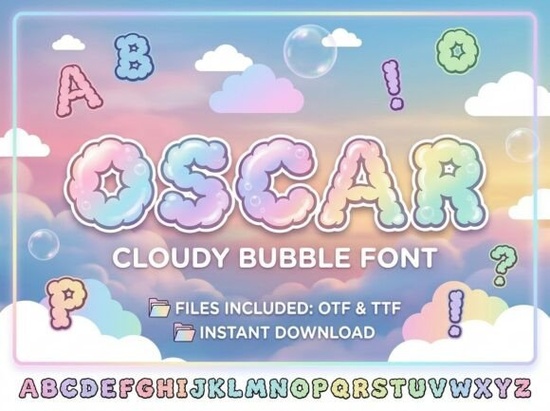
If you're looking for a font that feels like a soft summer day light, cheerful, and full of gentle charm the Oscar Font might be exactly what your next creative project needs. Designed with dreamy pastel gradients, fluffy cloud-like letterforms, and tiny bubble accents, Oscar brings a playful, “cloudy bubble” aesthetic to everything from nursery wall art to kids’ apparel and kawaii-inspired stationery.
This isn’t just another display font it’s a mood. Each character looks like it’s floating on air, with a whimsical outline and multi-colored softness that makes even simple phrases feel magical. Whether you’re designing printable quote cards for Instagram, custom onesies for a small shop, or birthday invitations for a child’s party, Oscar adds instant warmth without overwhelming your layout.
What kinds of projects work best with Oscar?
Oscar shines in contexts where softness, innocence, and joy are key. Think:
- Nursery and kids’ room decor – Wall decals, growth charts, or personalized name signs
- Children’s clothing and accessories – Onesies, tote bags, or hair clips with sweet messages
- Social media graphics – Uplifting quotes over pastel backgrounds
- Stationery and greeting cards – Birthday cards, baby announcements, or thank-you notes
- Kawaii or cottagecore branding – Logos or packaging for small businesses with a gentle, handmade vibe
Because of its detailed design, Oscar works best at larger sizes. It’s not meant for body text but that’s part of its charm. Use it as a headline, a focal word, or a decorative accent, and let its bubbly personality do the talking.
How does Oscar compare to other playful display fonts?
Oscar stands apart because of its cloud-inspired texture and gradient coloring. Unlike more geometric or hand-lettered options like the rounded sweetness of Dango or the sporty energy of Sports Baseball fonts Oscar leans into fantasy and softness. Even compared to delicate inline styles like Lumina Inline, Oscar feels more tactile, almost like you could reach out and touch a puff of cotton candy.
Tips for using Oscar effectively
Because Oscar is so visually rich, less is often more. Here’s how to get the best results:
- Pair it with clean, neutral fonts. Let Oscar be the star use a simple sans-serif like Helvetica or Montserrat for supporting text.
- Use plenty of white (or pastel) space. The font already has visual weight; crowding it will muddy its dreamy effect.
- Avoid dark or busy backgrounds. Oscar’s pastel gradients need light, airy surroundings to shine.
- Check your print settings. If you’re using it for physical products, ensure your printer can handle subtle color transitions without banding.
Also, remember that Oscar includes both uppercase and lowercase letters, plus numerals and punctuation so you’re not limited to single-word designs. You can craft full phrases like “sweet dreams” or “hello sunshine” while keeping that cohesive, cloud-kissed look.
Who should consider adding Oscar to their toolkit?
This font is especially useful for:
- Print-on-demand sellers creating kids’ or lifestyle products
- Handmade stationery artists who lean into kawaii or whimsical themes
- Small business owners branding baby boutiques, toy shops, or children’s services
- Digital designers making social templates or Canva kits for mom bloggers or educators
If your audience responds to kindness, nostalgia, or gentle aesthetics, Oscar can help you speak their visual language without saying a word.